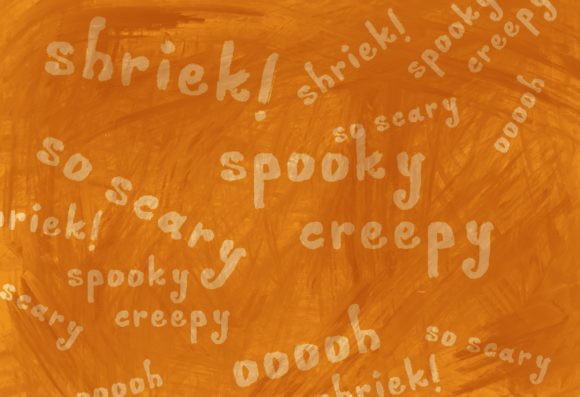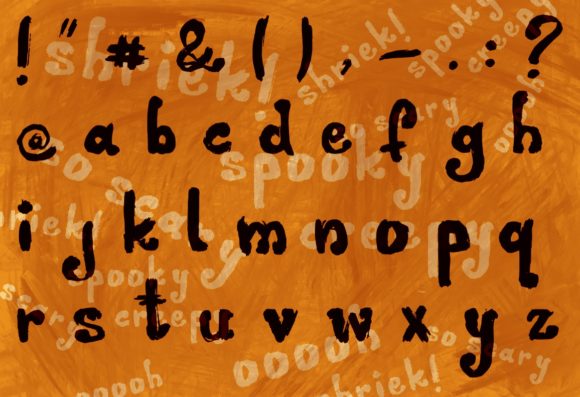
Introduction to Greasy Fingers Font
Greasy Fingers is a stunning, spooky and scary decorative font, perfect for all the witches, ghouls and ghosts out there.
It will add a creepy feel to any Halloween-themed design project .
Key Features of Greasy Fingers Font